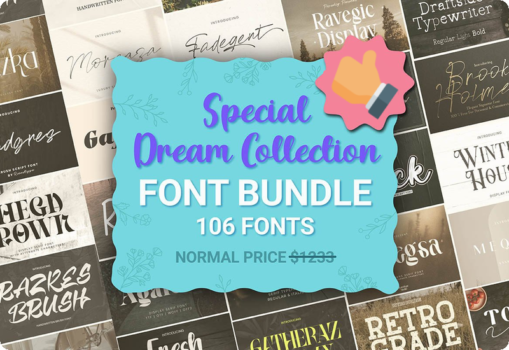
Sure thing! Are you prepared to take your design projects to the next level and access a wide range of creative options? Check out the Special Dream Font Bundle by Rvandtype, which includes 106 premium fonts that can add a special touch to your vision.
Premium Fonts included in the Special Dream Font Bundle
- Sweet Someday Fontes Script Fonte
- Sparkle Shine Script & Handwritten Font
- White Scratches Script & Handwritten Font
- Brook Holmes Script & Handwritten Font
- Flowers Sunday Script & Handwritten Font
- After Daylight Script & Handwritten Font
- Brigovin Script & Handwritten Font
- Retro Grade Slab Serif Font
- Simple Grunge Display Font
- Batfide Signature Script & Handwritten Font
- Sweetness Everyday Duo Fontes Script Fonte
- Tomato Kitchen Duo Fontes Script Fonte
- Simple Daily Fuentes Caligráficas Fuente
- Sportfield Varsity Polices Mécanes
- Winter House Display Font
- Draftside Slab Serif Font
- Brush Shine Script & Handwritten Font
- Bright Tropical Script & Handwritten Font
- Withered Leaves Script & Handwritten Font
- Sunshine Memories Script & Handwritten Font
- Meqalin Sans Serif Font
- Bellyluerd Script & Handwritten Font
- Vasavine Blackletter Font
- Khageats Script & Handwritten Font
- Retro Side Display Font
- Akurasha Script & Handwritten Font
- Havergie Czcionki Skryptowe Czcionka
- Lovaline Story Display Font
- Make Wonderful Moments Script & Handwritten Font
- Shine Bloom Display Font
- Beloved Journey Script & Handwritten Font
- Salthing Script & Handwritten Font
- Simple Something Script & Handwritten Font
- Brownie Moments Script & Handwritten Font
- Your Dream Script & Handwritten Font
- Hey Yours Script & Handwritten Font
- Bongaty Display Font
- Parallel Night Display Font
- Beach Umbrella Script & Handwritten Font
- Secret Place Script & Handwritten Font
- Readwish Script & Handwritten Font
- Summer Yesterday Script & Handwritten Font
- Stay Happy Sunshine Polices Manuscrites
- Winter Yesterday Script & Handwritten Font
- Agaleoz Serif Font
- Wednesday Summer Script & Handwritten Font
- Bright Style Script & Handwritten Font
- Farmer House Script & Handwritten Font
- Quick Script & Handwritten Font
- Raellisca Script & Handwritten Font
- Valline Wish Script & Handwritten Font
- Raflist Script & Handwritten Font
- Agezka Sans Serif Font
- Holiday Funday Script & Handwritten Font
- Greatest Moments Script & Handwritten Font
- Rufawans Script & Handwritten Font
- Always Grateful Serif Font
- Dream Road Script & Handwritten Font
- First Beloved Script & Handwritten Font
- Ocean Summer Script & Handwritten Font
- Shintelline Script & Handwritten Font
- Jafeline Hand Script & Handwritten Font
- Cartline Brush Fuentes Caligráficas Fuente
- Callatte Script & Handwritten Font
- Good and Cozy Script & Handwritten Font
- Wind Palm Script & Handwritten Font
- Rocqora Serif Font
- February Notes Script & Handwritten Font
- Bateran Script & Handwritten Font
- Sweet Bread Sans Serif Font
- Hegarown Serif Font
- Fresh Night Script & Handwritten Font
- Fadegent Script & Handwritten Font
- Quarterly Script & Handwritten Font
- Gryzensa Display Font
- Welcome Candy Script & Handwritten Font
- Meaglez Serif Font
- Sprinkles Cupcakes Script & Handwritten Font
- Rigrofe Slab Serif Font
- Hadvenly Script & Handwritten Font
- Cavergiz Serif Font
- Anderlin Daily Script & Handwritten Font
- Riverna Side Sans Serif Font
- Zerafoc Display Font
- Avecrig Serif Font
- Nevolide Display Font
- March History Script & Handwritten Font
- Banegsa Sans Serif Font
- Motzeda Serif Font
- Blusbow Script & Handwritten Font
- Ravegic Serif Font
- Razkes Brush Script & Handwritten Font
- Strezy Break Display Font
- Moraeza Script & Handwritten Font
- All Caps Split Monogram Decoratieve Fonts Font
- Royagna Sans Serif Font
- Gafeniv Duo Czcionki Szeryfowe Czcionka
- Scratch Board Display Font
- Ridvena Script & Handwritten Font
- Bottagif Script & Handwritten Font
- Gratezon Display Font
- Gagnersy Script & Handwritten Font
- Rougnie Brush Display Font
- Gatheraz Serif Font
- Sweet Ribbon Script & Handwritten Font
- Wadgres Script & Handwritten Font
Dive into Diversity
From elegant scripts to bold display fonts, the Special Dream Font Bundle offers a diverse range of styles to suit every project. Whether you’re crafting a sophisticated logo, designing eye-catching posters, or adding a personal touch to your digital creations, this bundle has got you covered.
Your Creative Journey Starts Here
Get creative with the Special Dream Font Bundle and allow your designs to express themselves fully. There are no limits to what you can imagine!